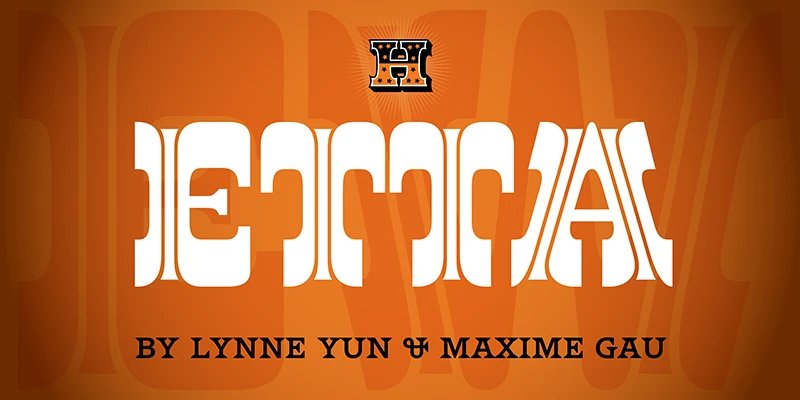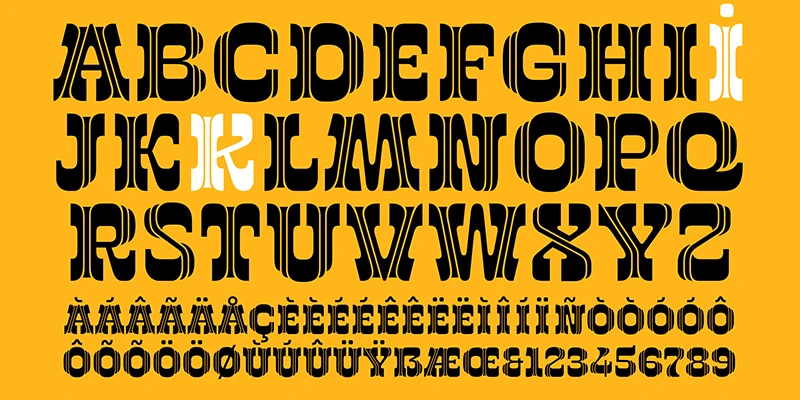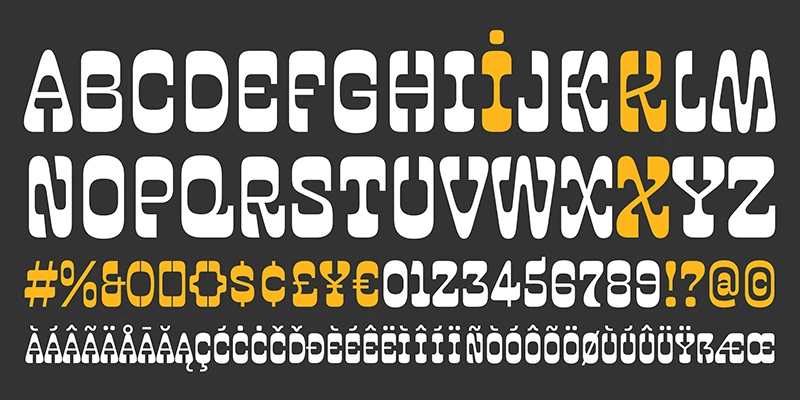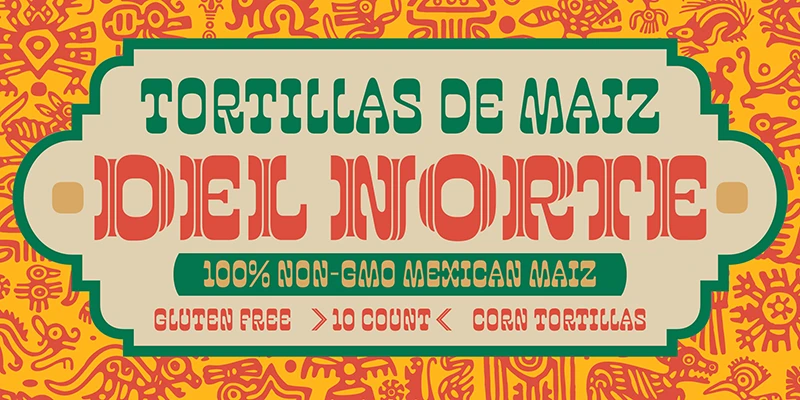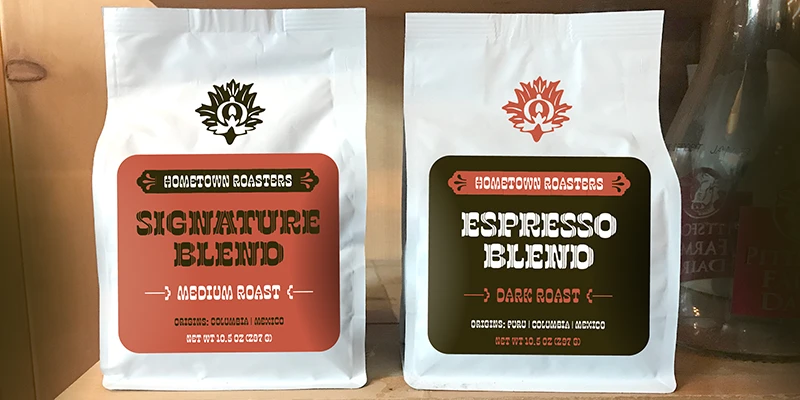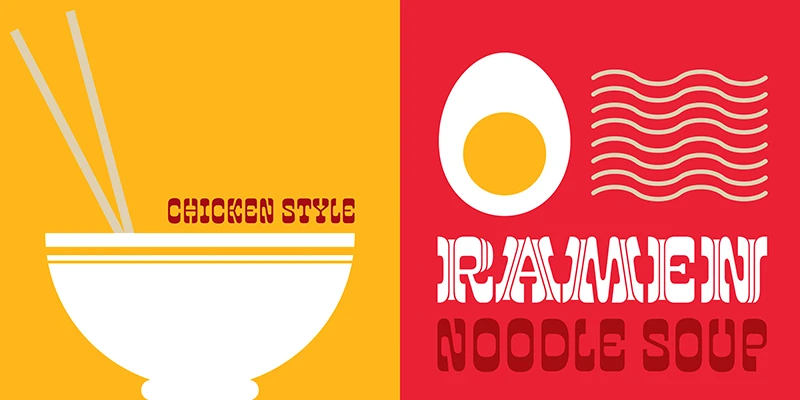
HWT Etta is a display typeface with two distinctive styles: Etta East and Etta West. These offer versatility in conveying wood type aesthetics, drawing inspiration from the 19th-century wood type era, infused with 1960s phototype sensibilities, and adapted for contemporary design demands. Despite their differences, both fonts are intended for impactful display use, so embrace their individuality and combine them boldly. HWT Etta is a tribute to Etta Shove Hamilton, J.E. Hamilton’s wife.
Designed by Lynne Yun & Maxime Gau
Etta East
Etta West